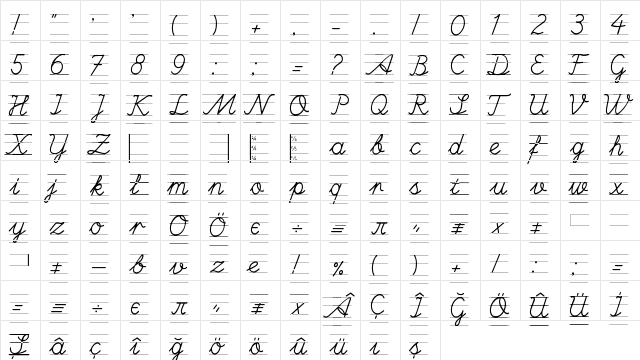
UlusalOkul.Com ǩzgili Regular
Design Context for UlusalOkul.Com ǩzgili Typeface
UlusalOkul.Com ǩzgili offers clean, dependable letterforms without strong stylistic allegiance, making it a practical choice for designers who need flexibility.